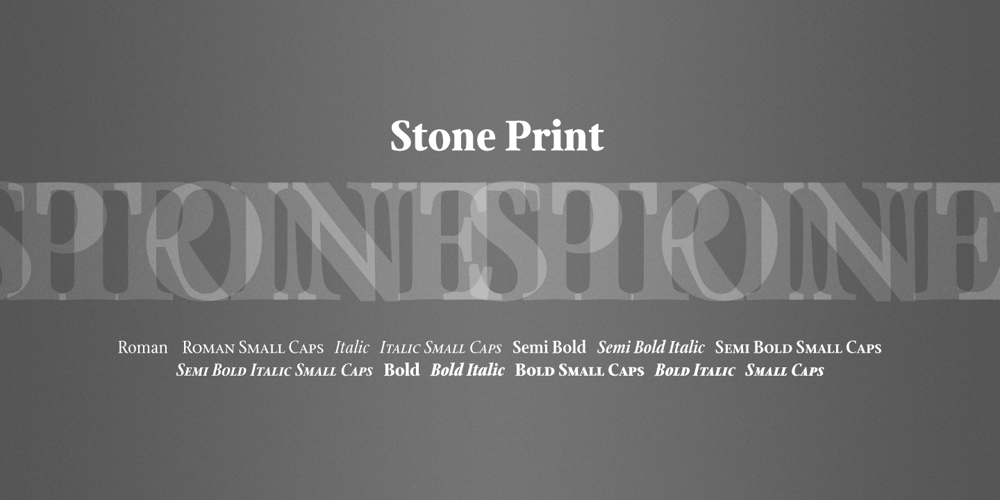
Stone Print Font Family was designed by Sumner Stone and published by Stone Type Foundry. Stone Print contains 18 styles and family package options. Stone Print is a “green” typeface. It uses less space than the most popular text typefaces without sacrificing legibility. Made for the reader, the environment, and whoever pays the bills. Together with Cycles, SFPL, and Arepo it makes up a superfamily of typefaces.